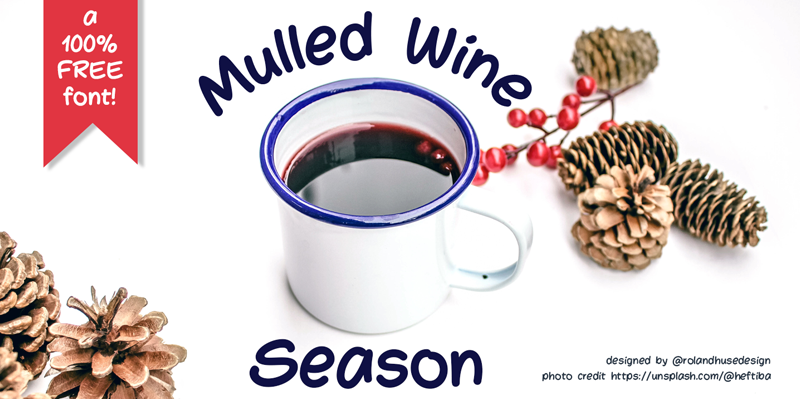
Preview and download Mulled Wine Season Font. Created by Runes & Fonts in Fancy Comic styles with 100% Free license.
�Mulled Wine Season� is a bold, rounded font with a bouncing, playful rythm and tight letterspacing. This font is 100% free for commercial use. However, I kindly ask and recommend you to visit my official store at rolandhuse.com and download the font files that come with a license document pdf. Donations are welcome and greatly appreciated and mean a lot to me to keep up with my work. Perfect for Children�s Book, Cartoon themes, etc. The character set covers Western and Eastern European Latin accents and special characters along with basic punctuation. Future update will include Old Hungarian, Vietnamese and Cyrillic scripts! For customization requests please send me a message contact@rolandhuse.com I hope you like this font, Cheers and Merry Christmas! Roland |